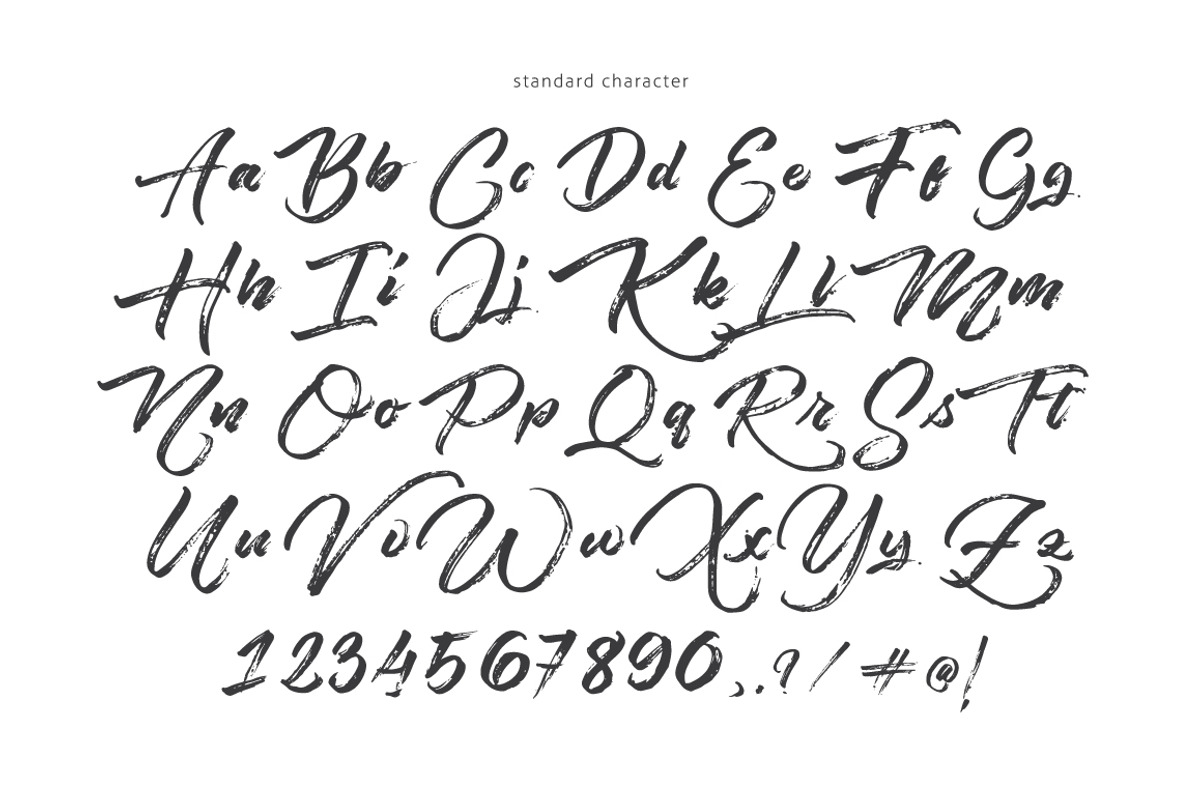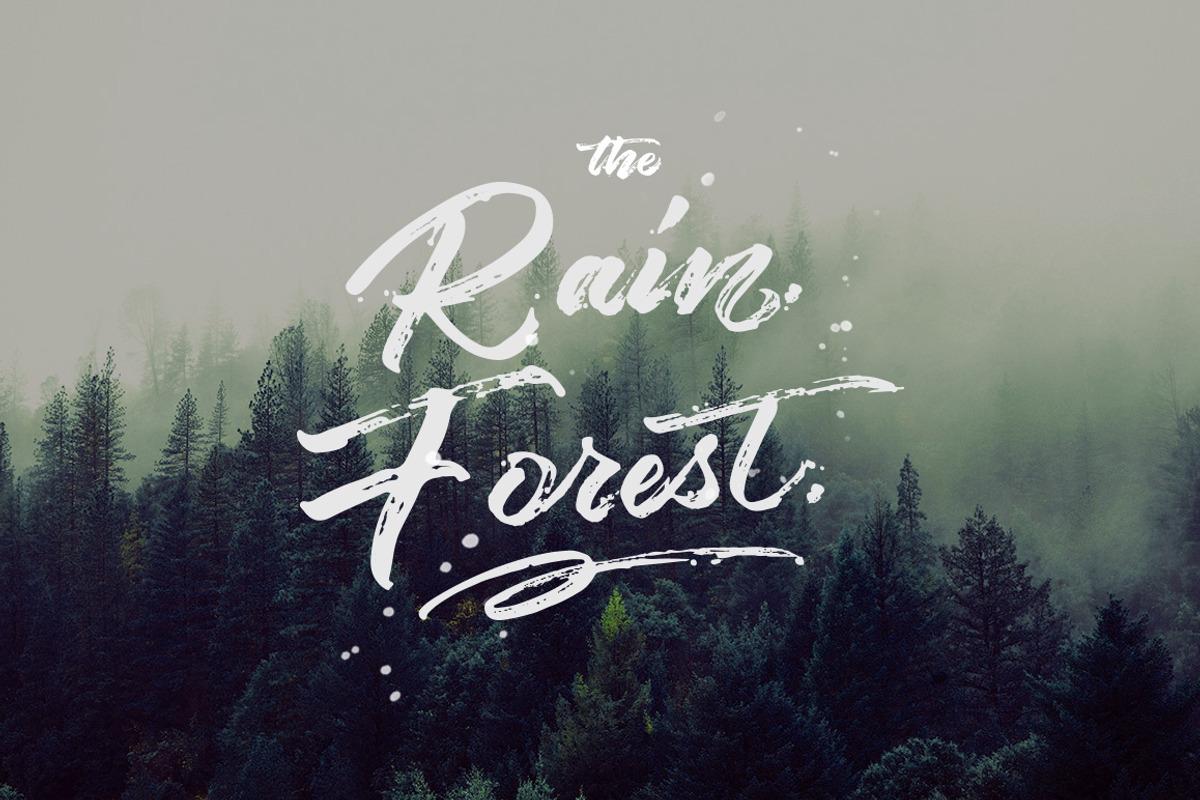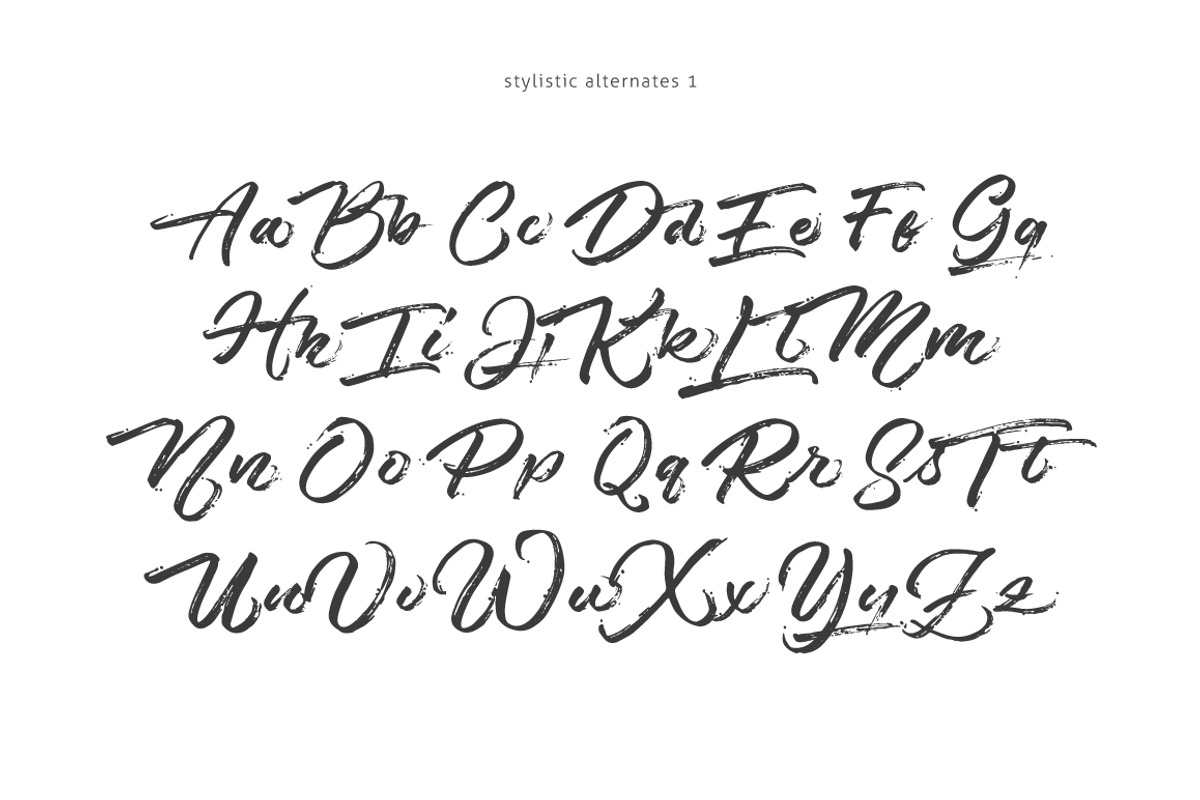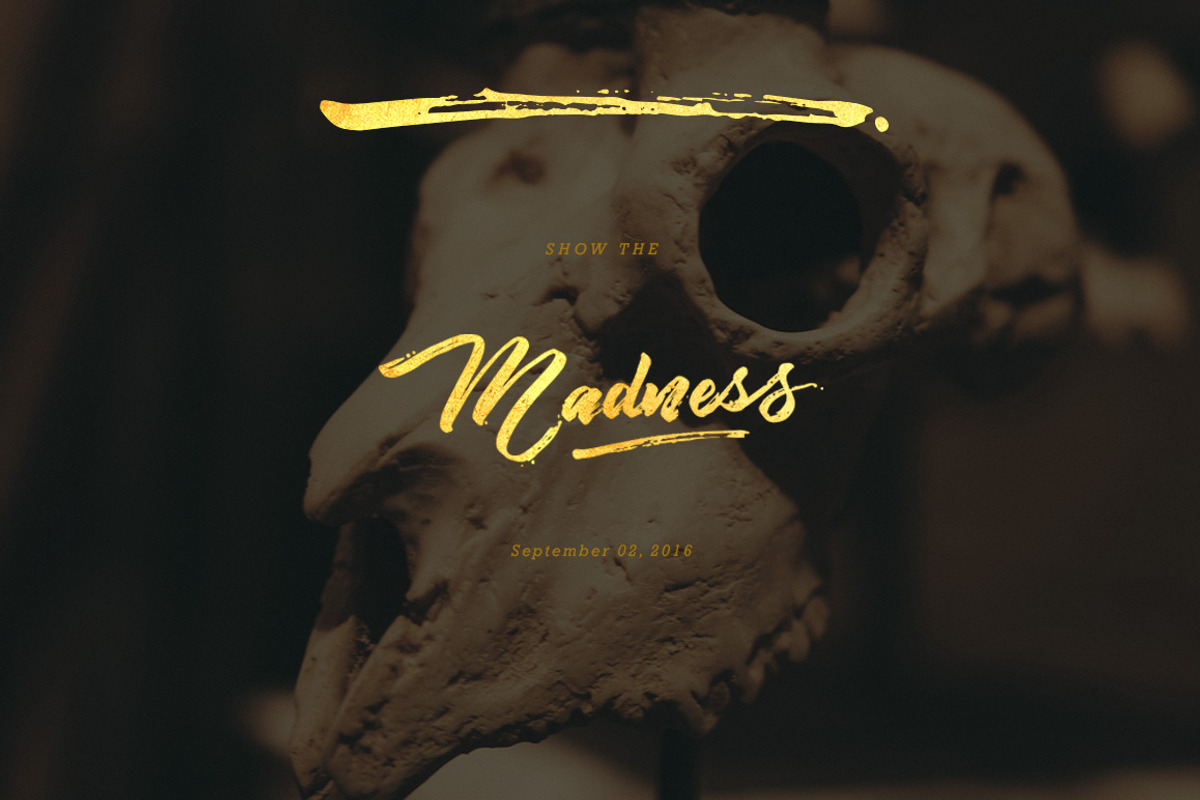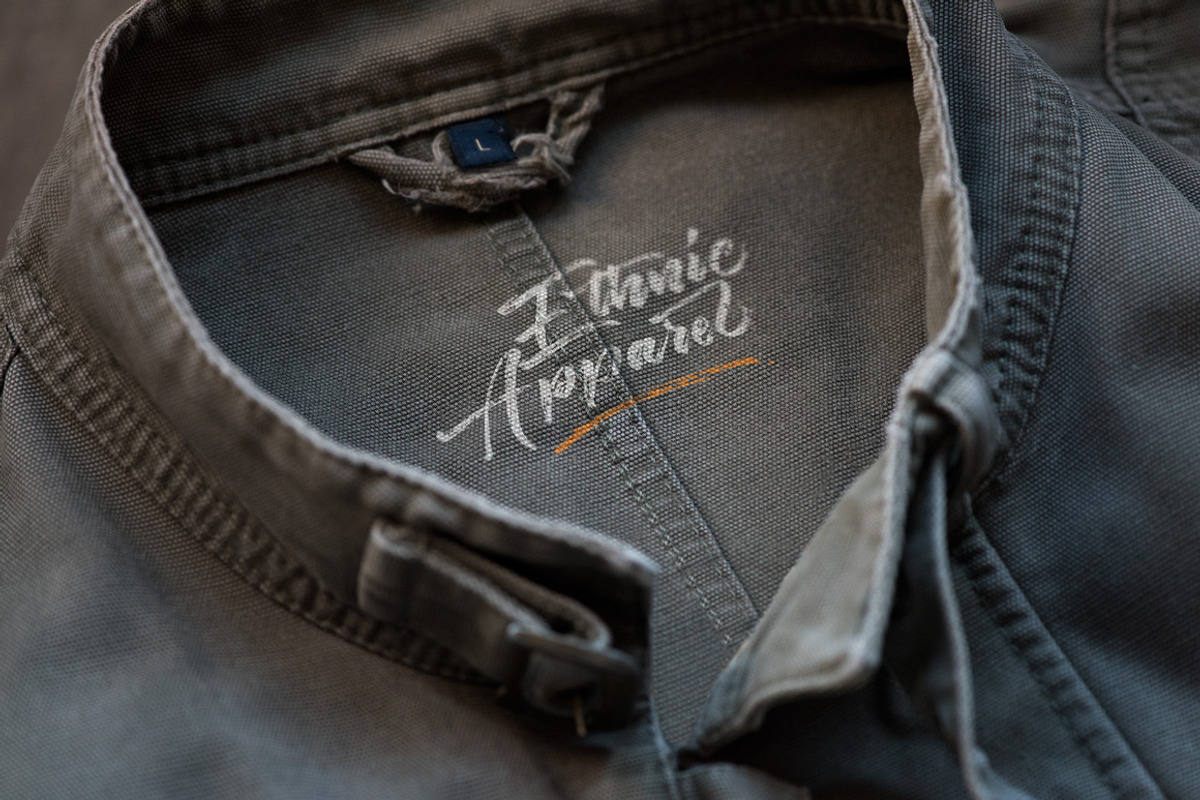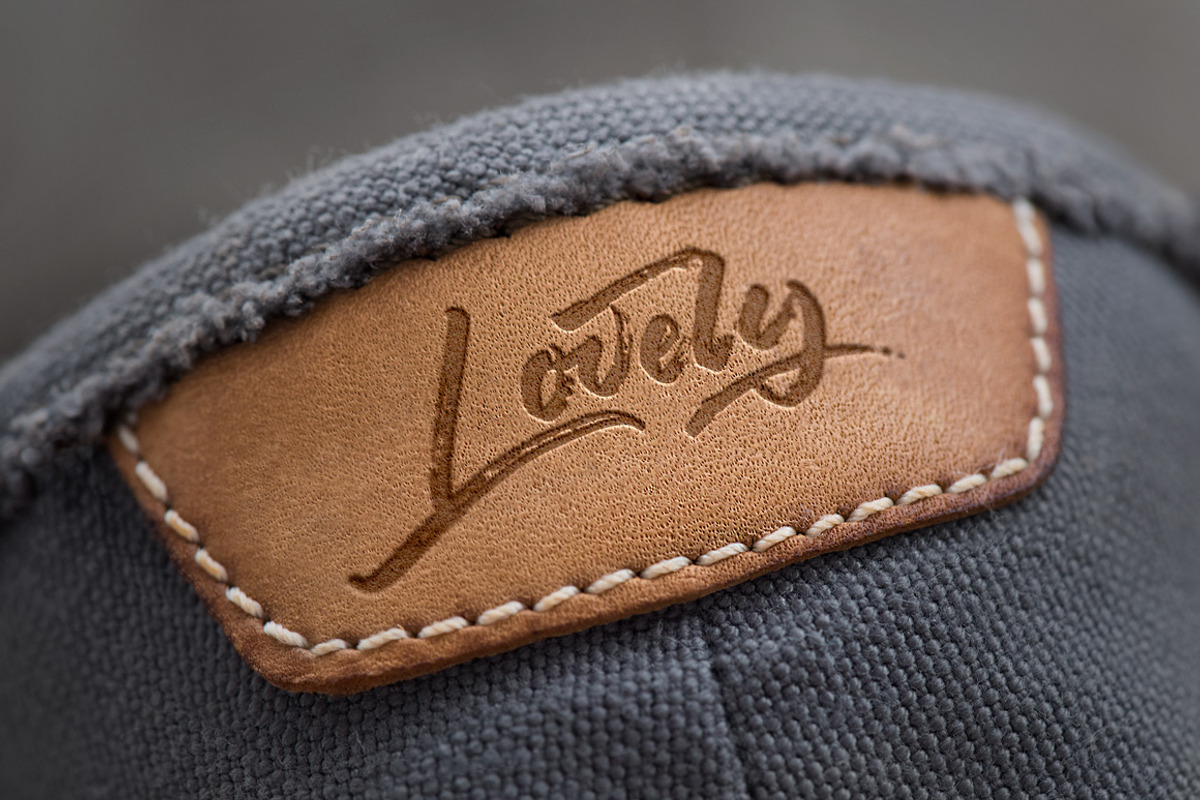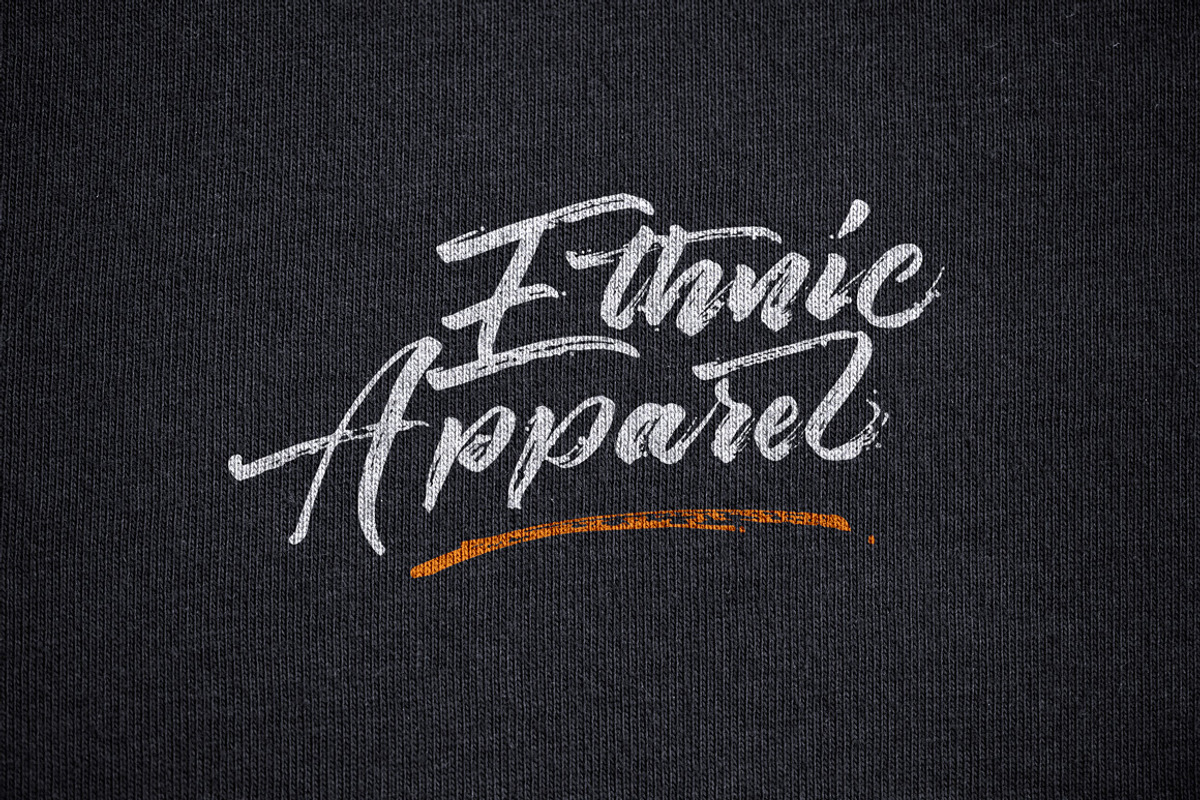
Angelow Typeface
Angelow Typeface by Thirtypath Studio is a font selected for branding, posters, packaging, typography.
- It comes with upper and lowercase characters, can be used for various purposes.
- Angelow Regular
Why Angelow Typeface is worth a look
Angelow Typeface by Thirtypath Studio fits naturally into Branding, posters, packaging, typography.